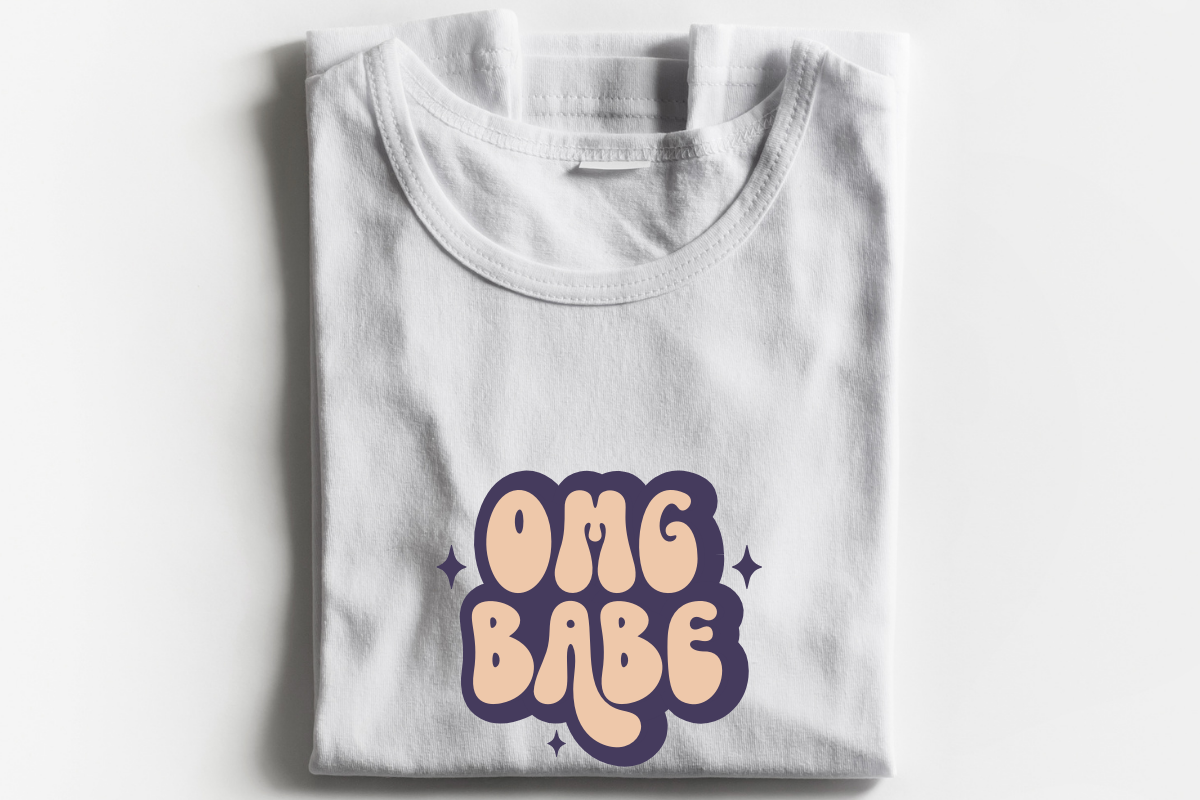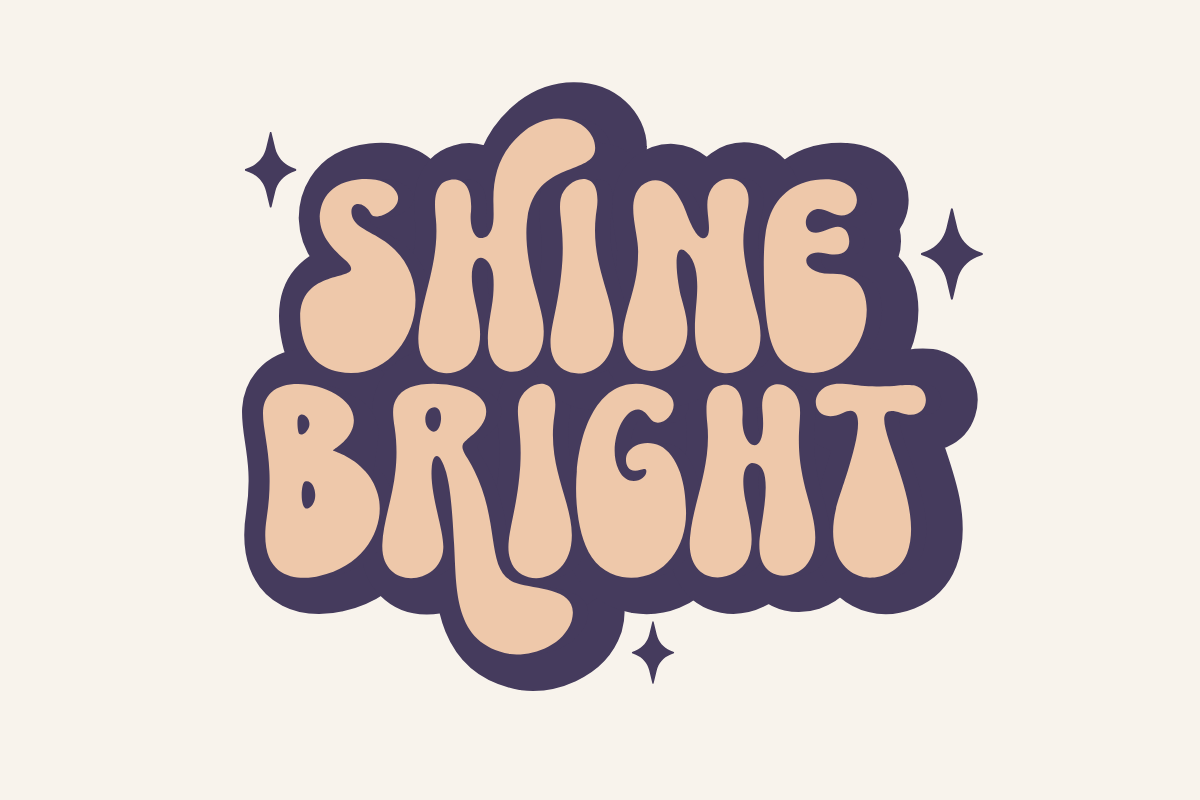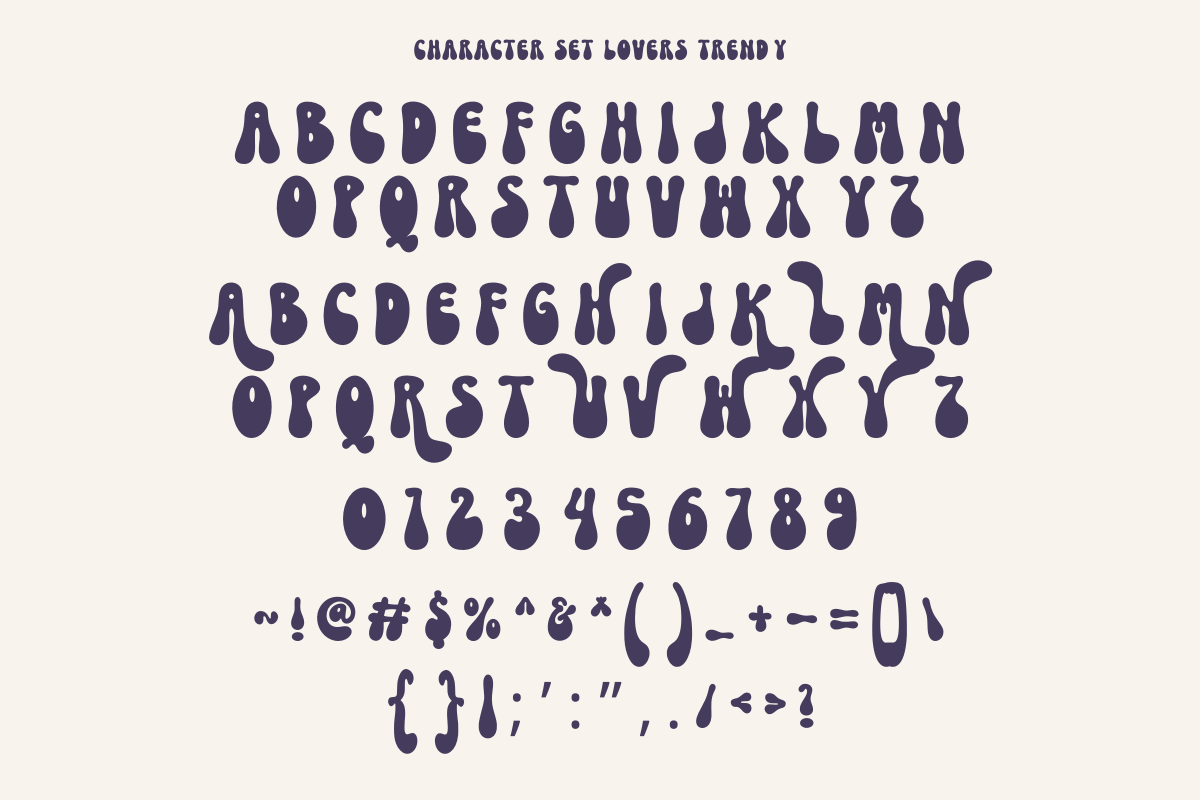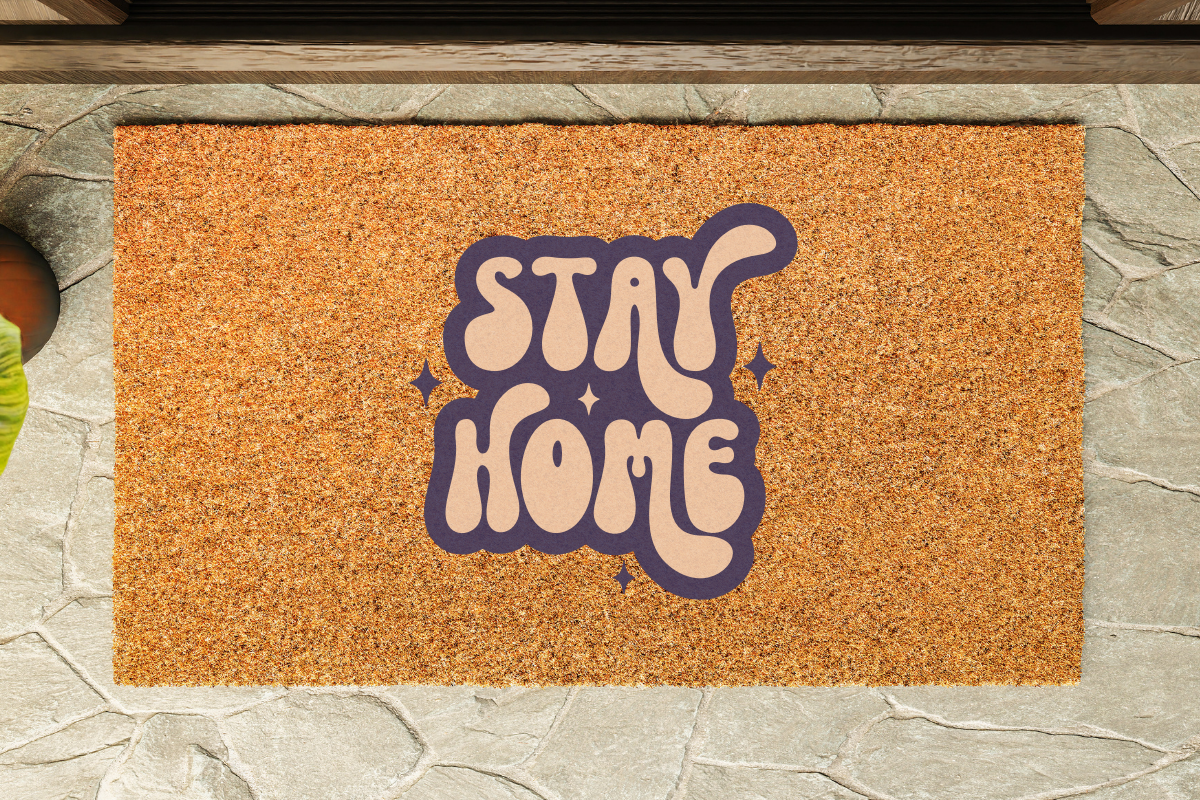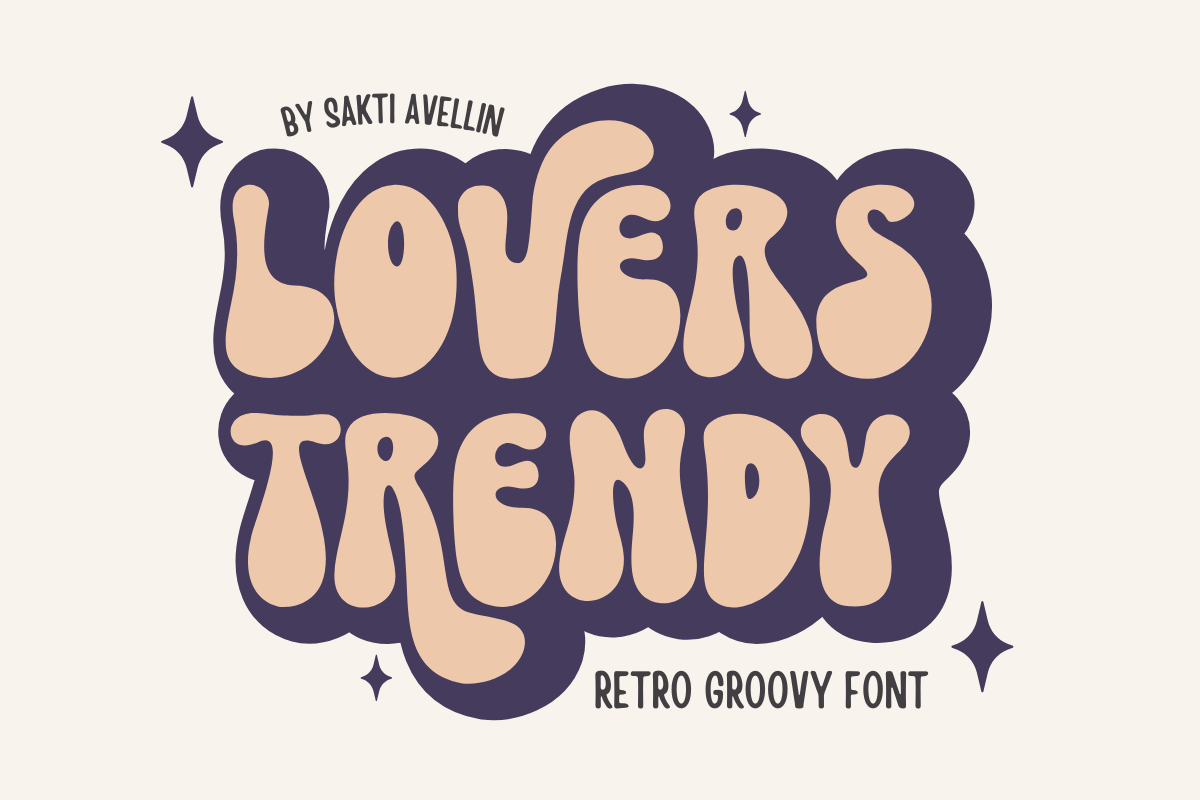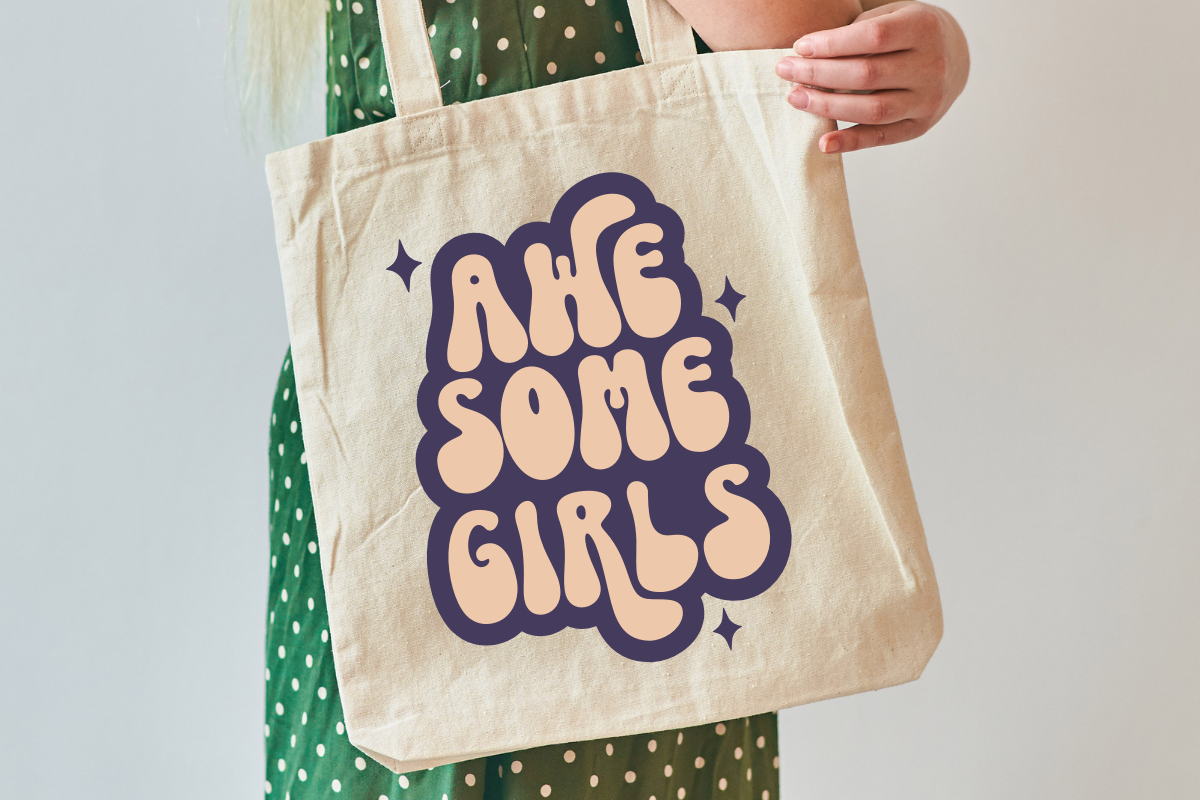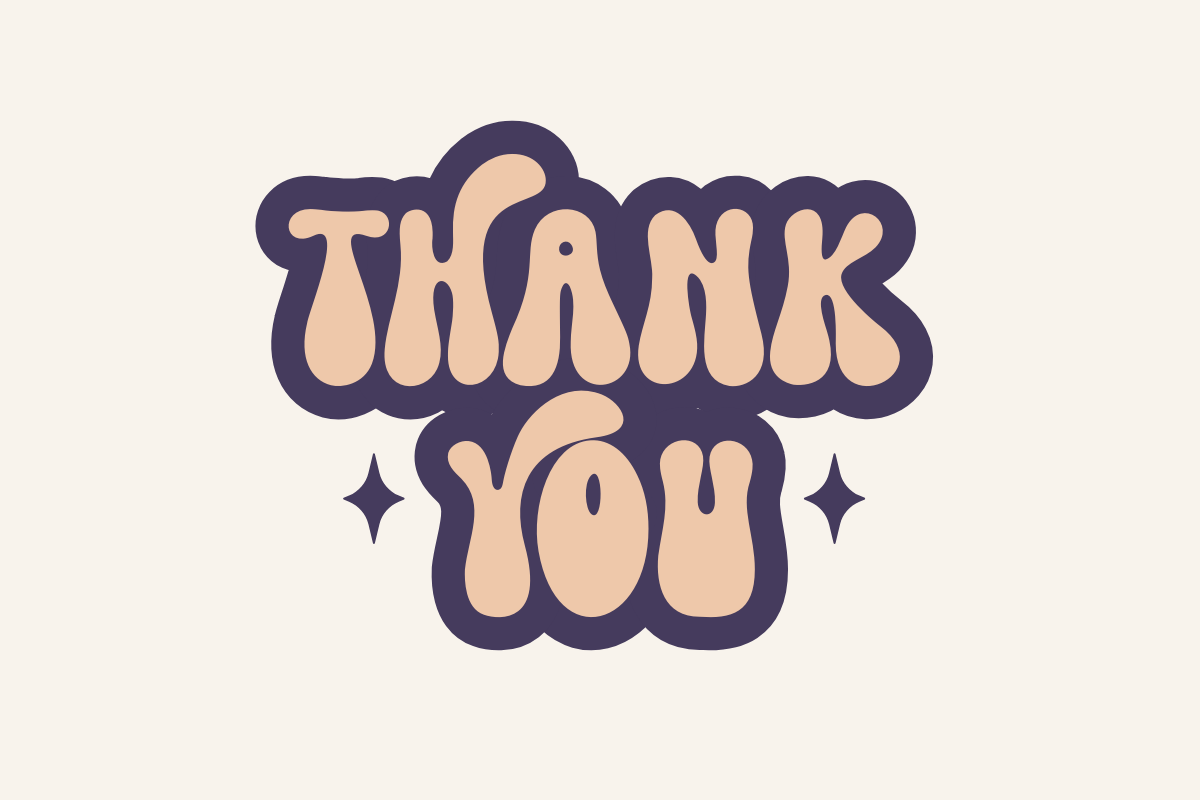
Lovers Trendy - Retro Groovy Font
Lovers Trendy is a wildly popular, charming retro groovy font that perfectly captures the whimsical, organic style of the 1970s. This chunky display font features rounded, playful letters and a smooth, bold presence, making it essential for vintage branding, fun feminine logos, retro posters, t-shirt designs, and vibrant social media graphics. Its distinctive style ensures it is a powerful display typeface for headlines and product packaging, appealing to a trendy, modern audience with a love for nostalgia. Embrace the throwback aesthetic with this truly delightful and sweet font!